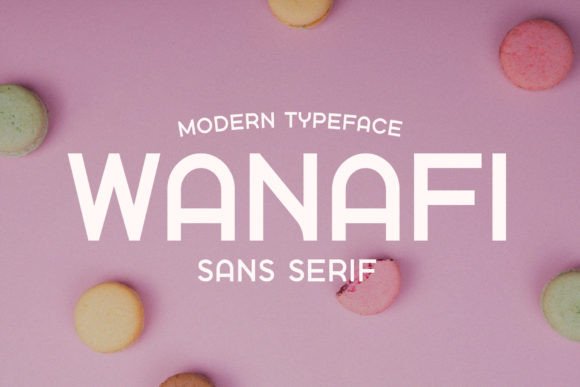
Prepare to be spellbound by Wanifi, the enchanting sans serif font that gracefully dances on the line between modern artistry and timeless charm. Its crisp, minimalist strokes exude an air of sophistication, granting your designs an enduring allure that defies the constraints of time. Unlock the gateway to elegance, where simplicity and luxury harmoniously intertwine to give life to captivating logos, branding initiatives, and a myriad of creative endeavors.
With Wanifi as your creative companion, you possess the power to manifest your design dreams into tangible realities. Its lithe curves and delicate flourishes bestow a captivating visual charm upon your creations, elevating them from ordinary to extraordinary. Envision your designs adorned with Wanifi's regal presence, commanding attention and leaving an indelible mark on the hearts of your audience.
Step into a realm where elegance and versatility converge, where Wanifi's versatility shines through a kaleidoscope of design possibilities. Whether you seek to forge a striking logo that exudes professionalism or craft heartfelt invitations that evoke a sense of occasion, Wanifi effortlessly adapts to your creative vision. Its inherent adaptability ensures that your messages always resonate with your audience, regardless of the medium or context.
Unleash the boundless potential of Wanifi, a font meticulously crafted to enhance your creative arsenal. Its modern aesthetics and enduring charm seamlessly blend, empowering you to create designs that captivate and inspire. As you weave your creative magic with Wanifi as your trusted ally, you'll discover a world where elegance and innovation harmoniously coexist, transforming your designs into masterpieces that transcend time and trends.